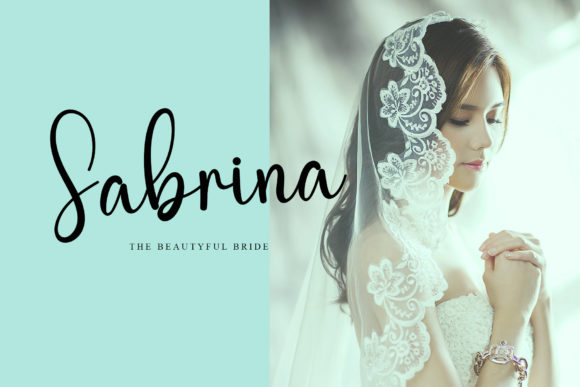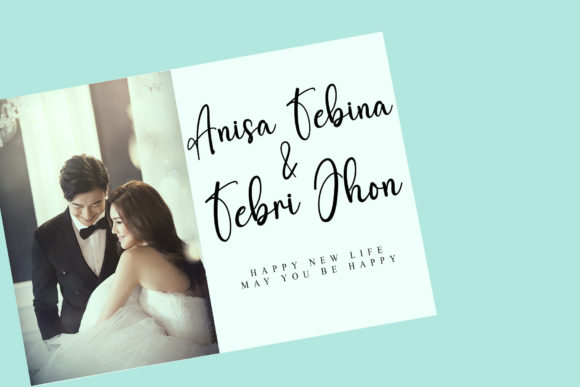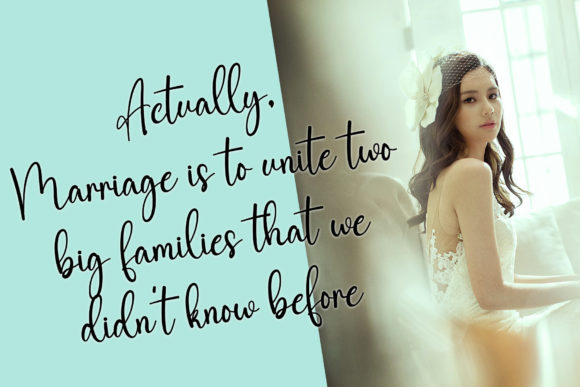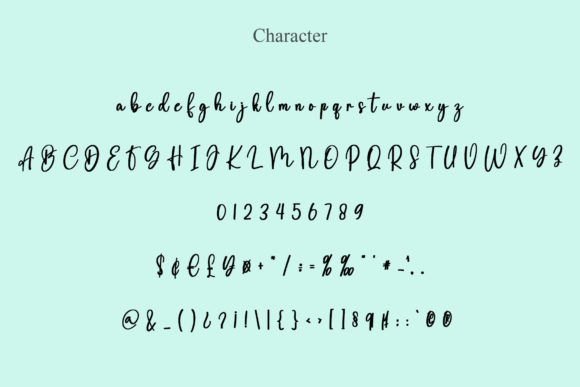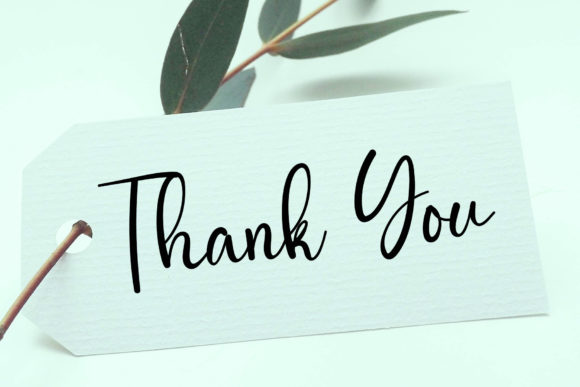
The Elusive Perfect Font: How Finally Font Stole My Heart
I still remember the frustration of working on a design project, hours spent searching for that one perfect font that would bring the entire concept together. My client wanted something elegant, yet playful; something that would make their brand stand out. I tried font after font, but nothing seemed quite right. That was until I stumbled upon Finally Font, a superb handwritten font that has since become a staple in my design toolkit.
An Honest Review of Finally Font
- ✨ Elegant and curvy lines that add a touch of sophistication to any project
- ✅ Highly versatile, perfect for a wide range of applications, from product packaging to social media posts
- 💕 A beautiful, handwritten feel that adds a personal touch to any design
- 🎉 Excellent for branding projects, magazine covers, and wedding designs
While Finally Font is an excellent choice for many projects, there are a few things to keep in mind:
- ⚠️ Some users have reported issues with kerning, particularly when using the font at smaller sizes. However, this can usually be adjusted with a bit of manual tweaking.
- 🤔 The font’s elegance can sometimes make it difficult to read at very small sizes or in large blocks of text.
A Practical Guide to Using Finally Font
The Story Behind Finally Font
Finally Font was created by a talented designer who wanted to craft a font that would bring a touch of elegance and whimsy to any project. With its beautiful, curvy lines and highly legible design, it’s no wonder Finally Font has become a favorite among designers and crafters alike.
Q: What makes Finally Font so special?
A: Finally Font’s unique blend of elegance and playfulness makes it perfect for a wide range of projects, from product packaging to social media posts.
Q: Is Finally Font difficult to read?
A: While Finally Font is elegant and cursive, it’s still highly legible. However, it may be more challenging to read at very small sizes or in large blocks of text.